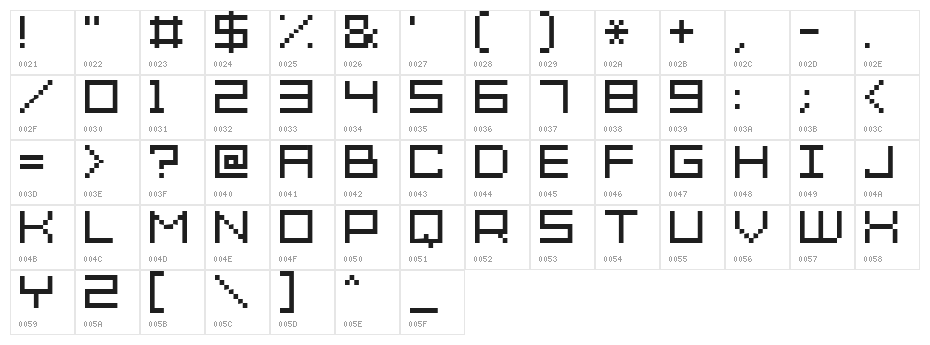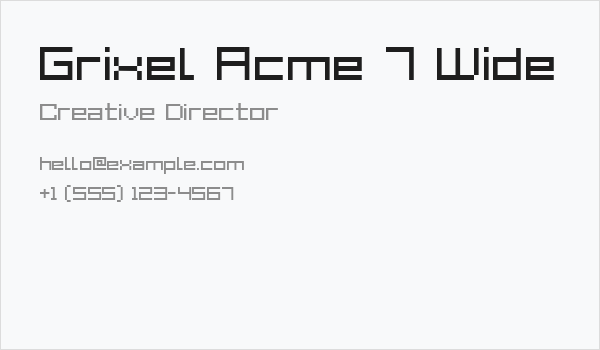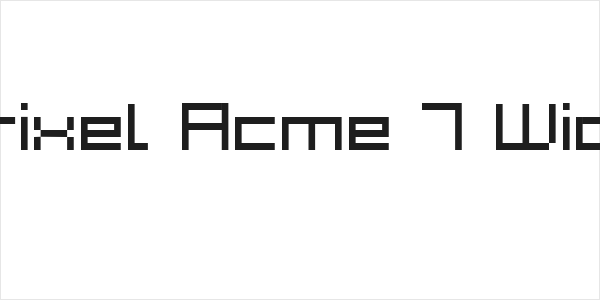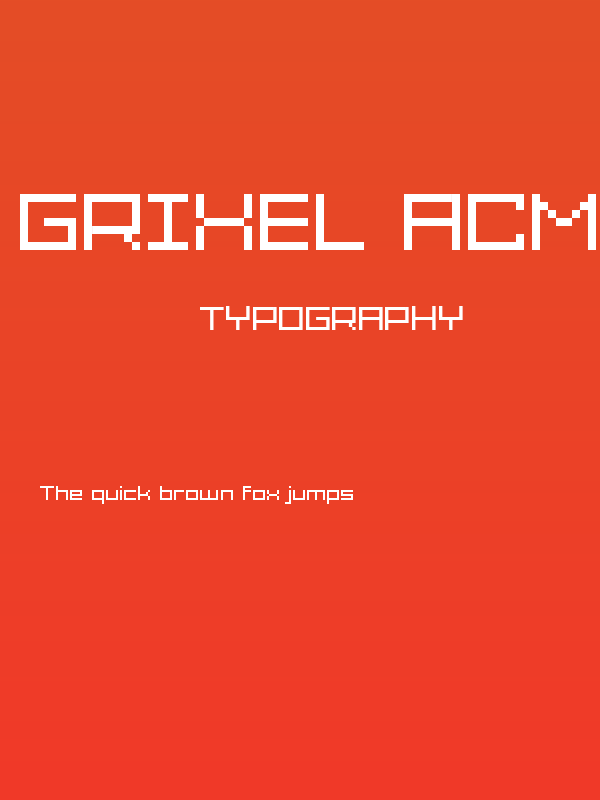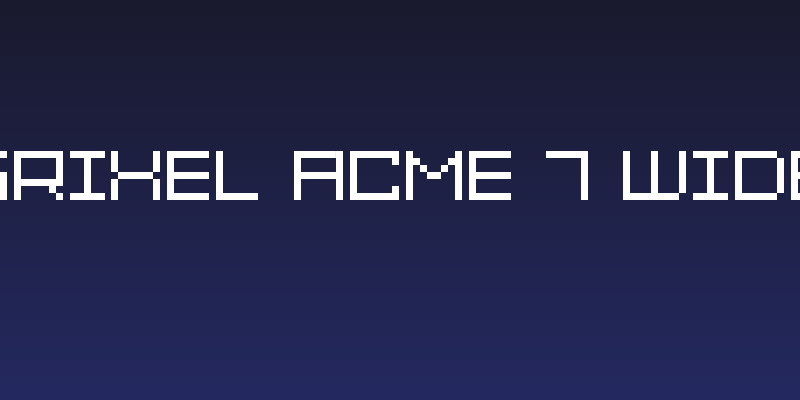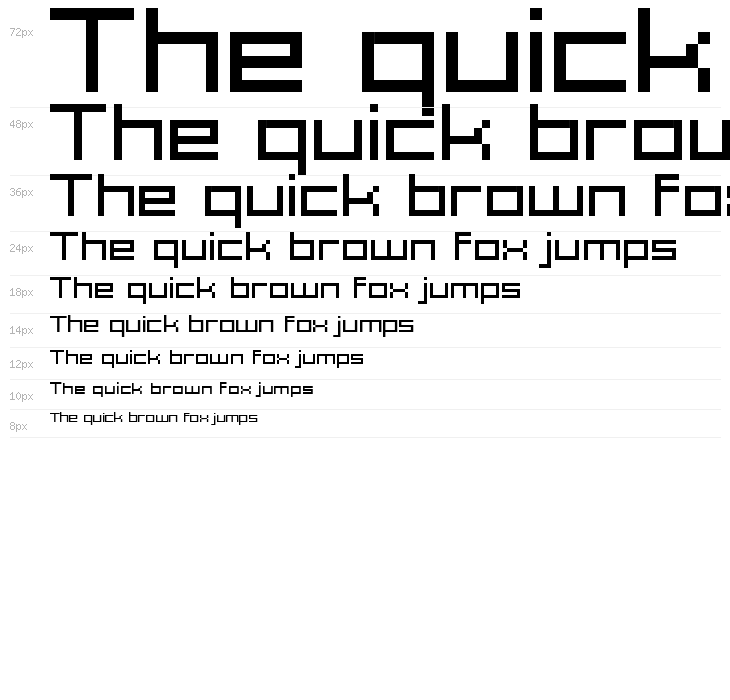
Grixel Acme 7 Wide Font
Grixel Acme 7 Wide Description
This font features a pixelated, grid-like design that is reminiscent of early digital displays and video games. Each character is composed of uniform square blocks, giving it a distinctly retro and technological feel. The uppercase and lowercase letters are consistent in style, maintaining a clean and structured appearance. The numerals and special characters follow the same design principles, ensuring a cohesive look across all glyphs. This font is ideal for projects that aim to evoke nostalgia or a digital aesthetic, such as video game graphics, tech-themed designs, or retro-inspired branding.
| Overall Style | Retro, Digital |
| Use Case | Headlines, Logos, Digital displays |
| Proposed Projects | Ideal for video game graphics, tech-themed designs, retro branding, and digital displays. |